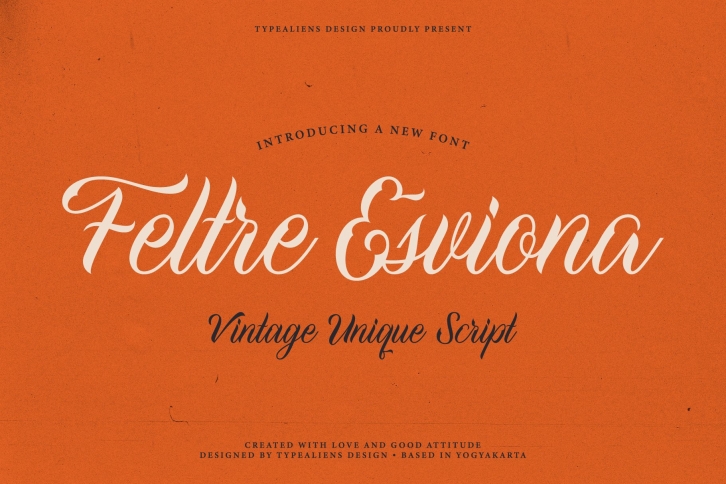
Feltre Esviona is a gorgeous font that was realeased on December 27, 2021. The font can be used in many style contexts and design environments. Perfect for invitations, magazines, websites, logos, and more! It was designed by llhamtaro and the file size is 15.17 MB. Thanks for checking out this font!